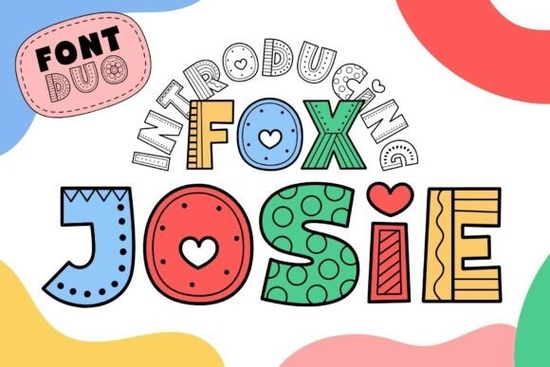
If you're looking for a playful, hand-drawn font that doubles as a coloring activity, Fox Josie Font is worth a closer look. Designed with bold outlines and whimsical doodle-like details inside each letter, it’s especially handy for anyone creating kids’ printables, educational worksheets, greeting cards, or seasonal crafts like Easter-themed projects. Unlike standard display fonts, Fox Josie invites interaction coloring in the letters becomes part of the design process, which adds a unique layer of engagement for both creators and end users.
What makes this font stand out is how seamlessly it blends decorative typography with functional learning tools. Teachers, homeschoolers, and activity book designers often need fonts that are not only visually appealing but also encourage creativity. Fox Josie delivers on both fronts: its chunky letterforms are easy to read, while the intricate inner patterns spark imagination. Whether you’re designing a birthday card, a sticker sheet, or a classroom alphabet poster, this font brings a cheerful, handmade feel without requiring illustration skills.
Who can use Fox Josie Font effectively?
This font shines in hands-on creative work. Here’s who might find it especially useful:
- Print-on-demand sellers creating mugs, T-shirts, or wall art with uplifting or child-friendly messages.
- Teachers and educators building custom worksheets, flashcards, or classroom decor that students can personalize.
- Crafters and hobbyists making greeting cards, scrapbook elements, or DIY party decorations.
- Small business owners developing playful branding for bakeries, toy shops, or children’s services.
Because the letters are designed with generous spacing and clear shapes, they scale well from tiny stickers to large posters without losing their charm. And since the internal doodles are part of the glyph itself, you don’t need to add extra graphics to make the text feel lively.
How does it compare to other decorative fonts?
While many decorative fonts focus purely on aesthetics, Fox Josie offers dual functionality. For example, if you enjoy its handcrafted vibe but want something simpler for body text, you might pair it with a clean companion font like Adam, which balances readability with subtle character. Or, if you’re exploring more illustrated styles, Katie offers a different kind of playful energy with softer curves and a storybook feel.
Other options in the same category include Secoy Xecore, which leans into geometric flair, and Star Tarot, ideal for mystical or fantasy-themed designs. And if you love the doodle aesthetic but want bolder outlines, Fox Josie remains one of the few fonts that truly bridges the gap between typography and coloring-book art.
Tips for using Fox Josie in real projects
To get the most out of this font, keep these practical ideas in mind:
- Use it for headlines or short phrases only. Its detailed interior patterns work best at larger sizes avoid using it for paragraphs.
- Leave room for coloring. If you’re creating printable pages, ensure there’s enough white space around letters so kids (or adults!) can easily color inside the lines.
- Pair with solid background colors or soft textures. A light pastel or kraft paper background enhances the handcrafted mood without competing with the font’s details.
- Experiment with layering. In design software, you can duplicate the text layer one filled with black for outlines, another with white fill to create a “color-me” version instantly.
Because it’s a display font, Fox Josie isn’t meant for formal documents or minimalist branding. But within its niche joyful, interactive, and kid-friendly design it’s remarkably versatile.
With its blend of function and fun, Fox Josie isn’t just a font it’s a creative tool that invites participation. That’s a rare quality in typography, and one that can add genuine value to your next printable, product, or classroom resource.